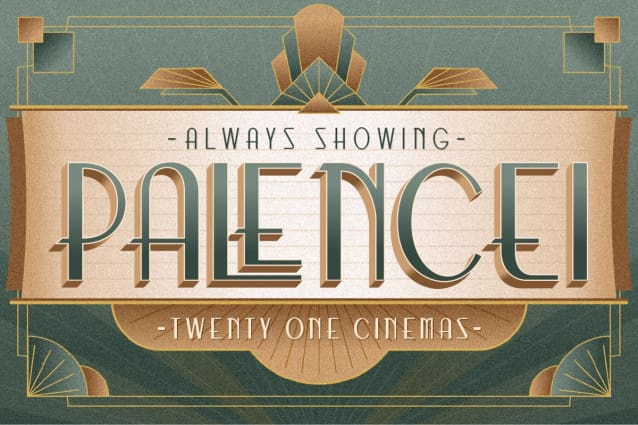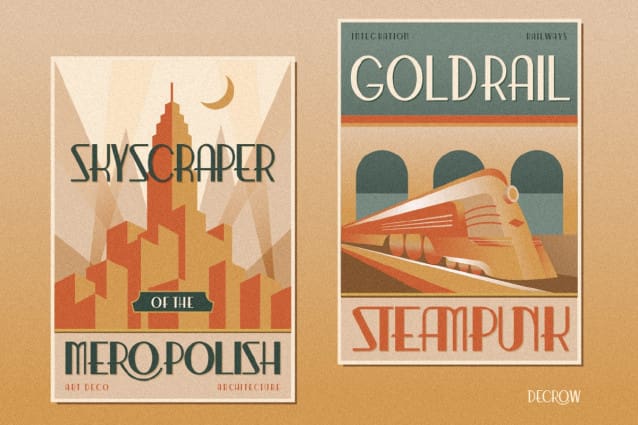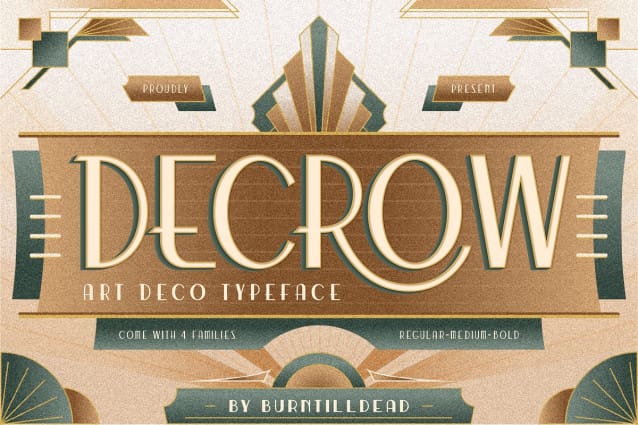
Decrow Font
Decrow Font: This font inspired of the 1920s and 1930s era with characterized of clean lines, symmetrical patterns and precision. Decrow have 3 style, bold, regular and medium. The boldness and glamour reflecting the era’s captivating with modernity and progress. Fitting seamlessly into both vintage and contemporary. So, this style embrace the elegance of simplicity, glamour and geometry of art deco. Decrow ideal for headlines, logos used in fashion, jewelry, or web projects.